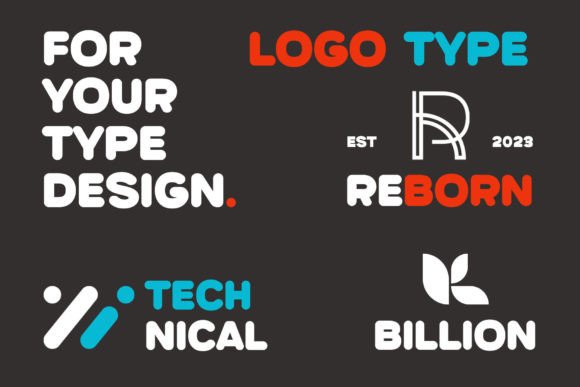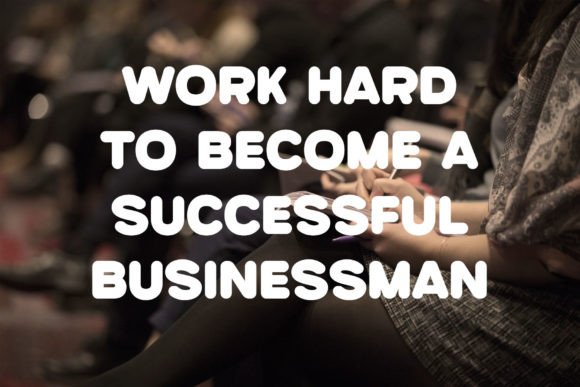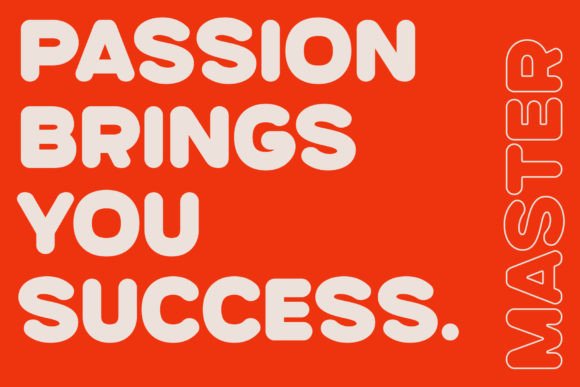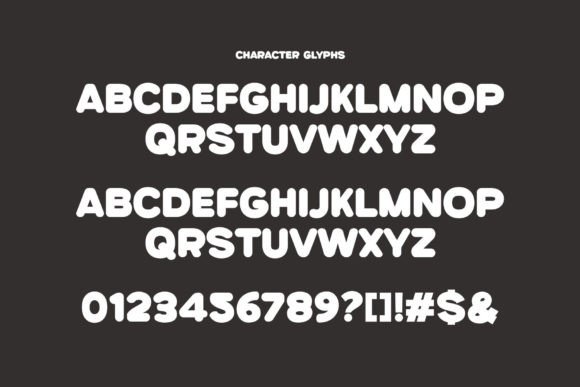
Introduction to Master Rounded Font
Do you remember the moment when a perfect font choice elevated your entire creative project? For designers, finding the right font can be the difference between a good design and a great one. It’s that ‘aha’ moment when all the elements come together, and the design becomes truly captivating.
One such game-changing font is the Master Rounded Font, a clean and modern sans-serif font that has been making waves in the design community. With its minimalistic approach to design, Master Rounded Font is highly legible and versatile, making it an ideal choice for both digital and print uses. Whether you’re working on a design project or need a reliable design resource, Master Rounded Font is definitely worth considering.
Key Features of Master Rounded Font
- High-quality design resource ideal for creative projects requiring a professional touch
- Features a unique rounded design with subtle nuances for added visual interest
- Perfect for use in digital design, print materials, and web applications
Honest Review: Master Rounded Font
As a designer, I’m always on the lookout for high-quality design resources to elevate my creative projects. Recently, I came across the Master Rounded Font, and I’m excited to share my honest review with you.
- ✨ Clean and minimalist design aesthetic that’s perfect for modern branding and UI/UX projects.
- ✨ High-quality font files that are smooth and seamless to work with.
- ⚠️ Limited font styles and weights, which may not be suitable for complex design projects.
Overall, I’m impressed with the Master Rounded Font’s simplicity and versatility. While it may not be the most comprehensive font collection, it’s a great choice for designers looking for a clean and modern aesthetic. With its high-quality files and free download option, it’s definitely worth checking out for your next creative project.
Master Rounded Font
The Master Rounded Font is a high-quality design resource perfect for any creative project. With its unique rounded edges, this font adds a touch of sophistication and elegance to your designs.
To get the most out of the Master Rounded Font, try using it in combination with other design elements, such as shapes and icons. You can also experiment with different font sizes and colors to create a unique look.
The Master Rounded Font is perfect for a variety of design projects, including:
– Logo design
– Brochure design
– Web design
Alternatives to Master Rounded Font
Great Vibes Font is a modern, elegant font perfect for creative projects that require a high level of sophistication. It’s ideal for use in design resources such as logos, branding materials, and website headers.
Great Vibes Font is a high-quality alternative to Master Rounded Font, offering a more refined and polished look. While Master Rounded Font is great for casual designs, Great Vibes Font is better suited for professional, high-end projects.
Alex Brush Font is a beautiful, handwritten font ideal for designers working on creative projects that require a personal touch. It’s perfect for use in design resources such as quotes, invitations, and social media graphics.
Alex Brush Font is a great alternative to Master Rounded Font for designers who want to add a touch of personality to their projects. While Master Rounded Font is great for clean and simple designs, Alex Brush Font is better suited for projects that require a more whimsical and artistic feel.
Pacifico Font is a beautiful, serif font perfect for designers working on creative projects that require a high level of sophistication. It’s ideal for use in design resources such as magazine articles, book covers, and website content.
What is the recommended font size for using Master Rounded Font?
Master Rounded Font is designed to be highly legible at various font sizes. However, for optimal readability, it’s recommended to use font sizes between 12pt and 24pt. This range allows the font to maintain its clarity and aesthetic appeal, making it suitable for a wide range of design applications.